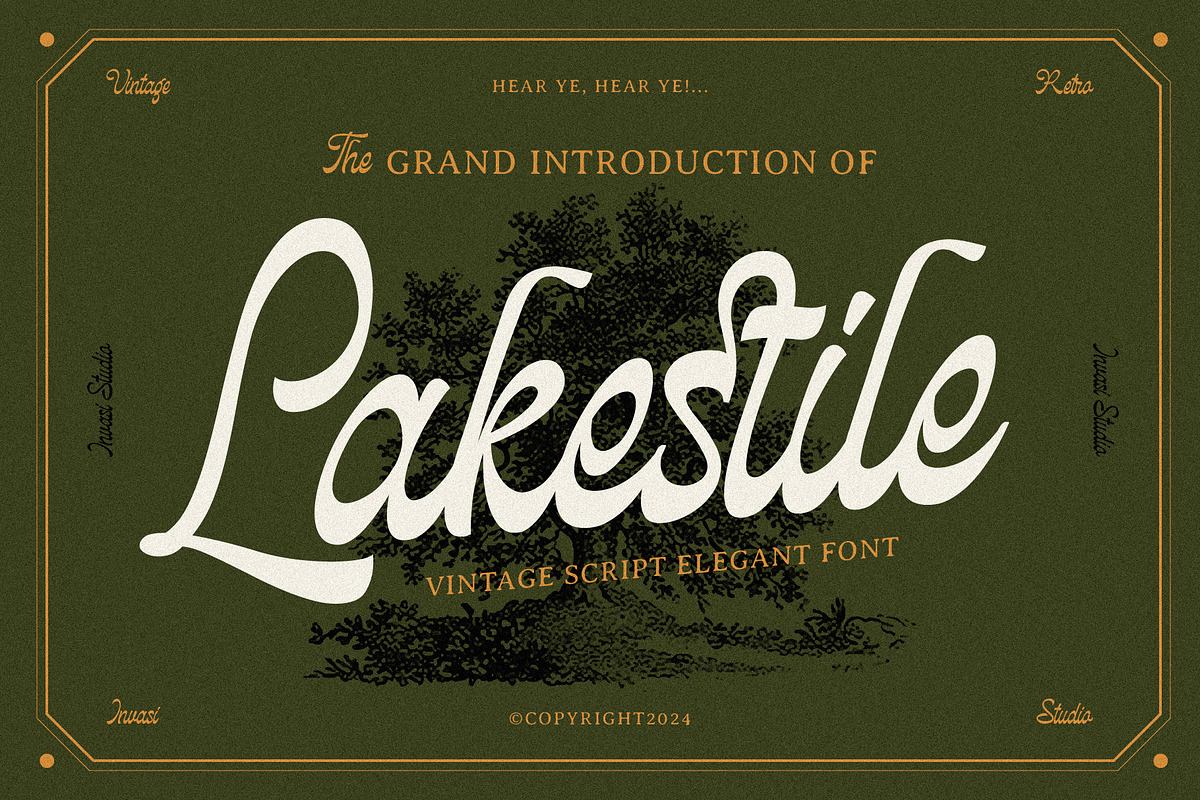
Lakestile - Classic Reverse Script Free Download
Lakestile - Classic Reverse Script Font Free Download
Add elegance and a vintage flair to your designs with Lakestile - Classic Reverse Script Font Free Download. This beautifully crafted script font features smooth, flowing letterforms with a unique reverse stroke design, making it perfect for logos, invitations, branding, and any project that requires a sophisticated, old-school touch.
Lakestile combines a classic script style with a modern twist, offering a dynamic, high-contrast look that catches the eye. It includes uppercase and lowercase letters, numerals, punctuation, and multilingual support—ideal for experimenting with stylish, elegant layouts.